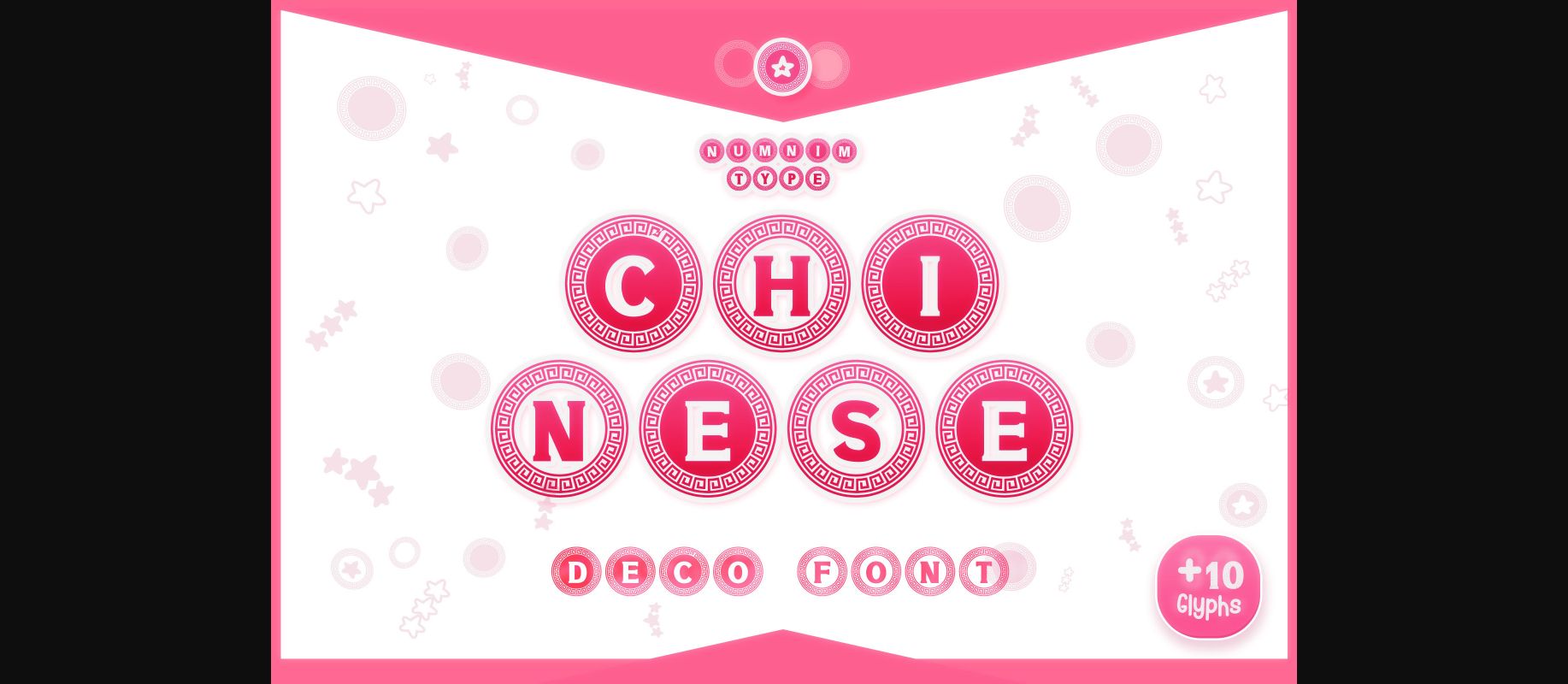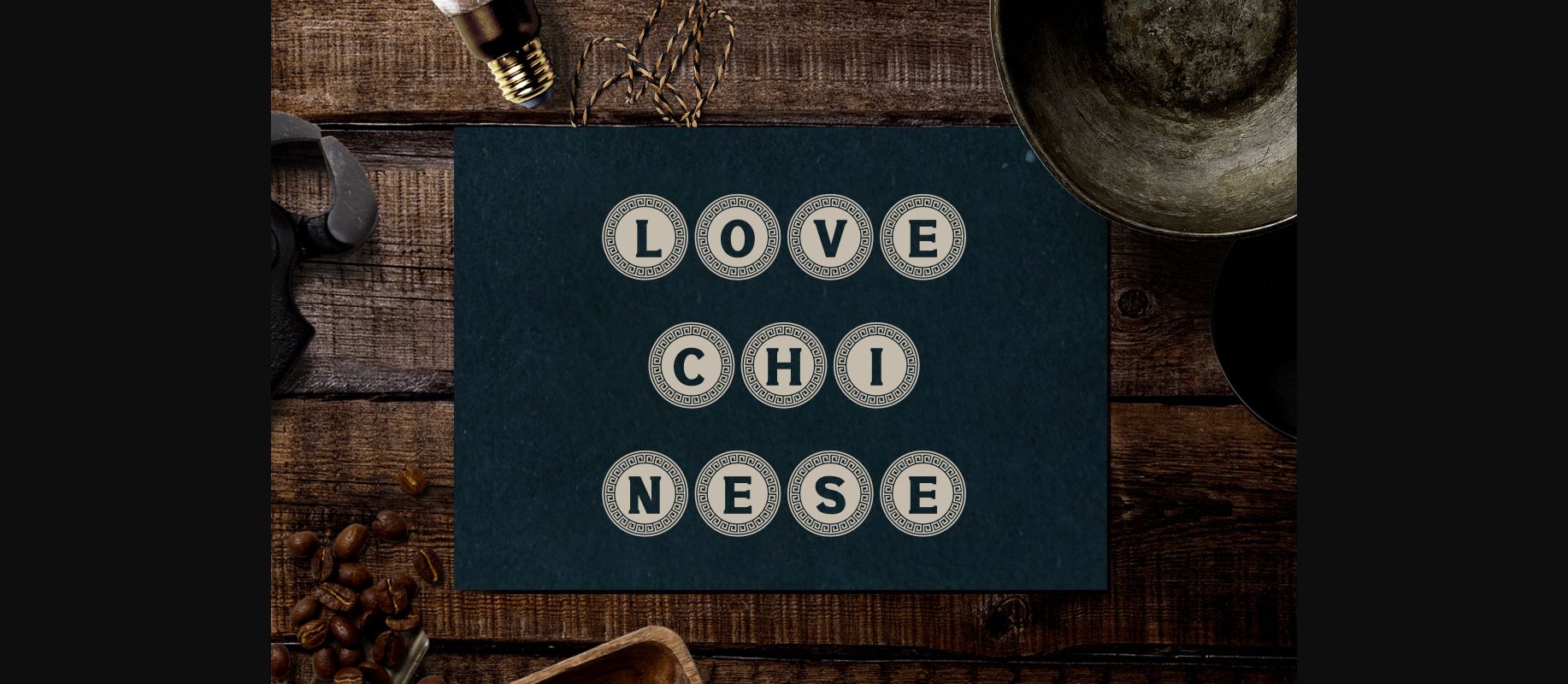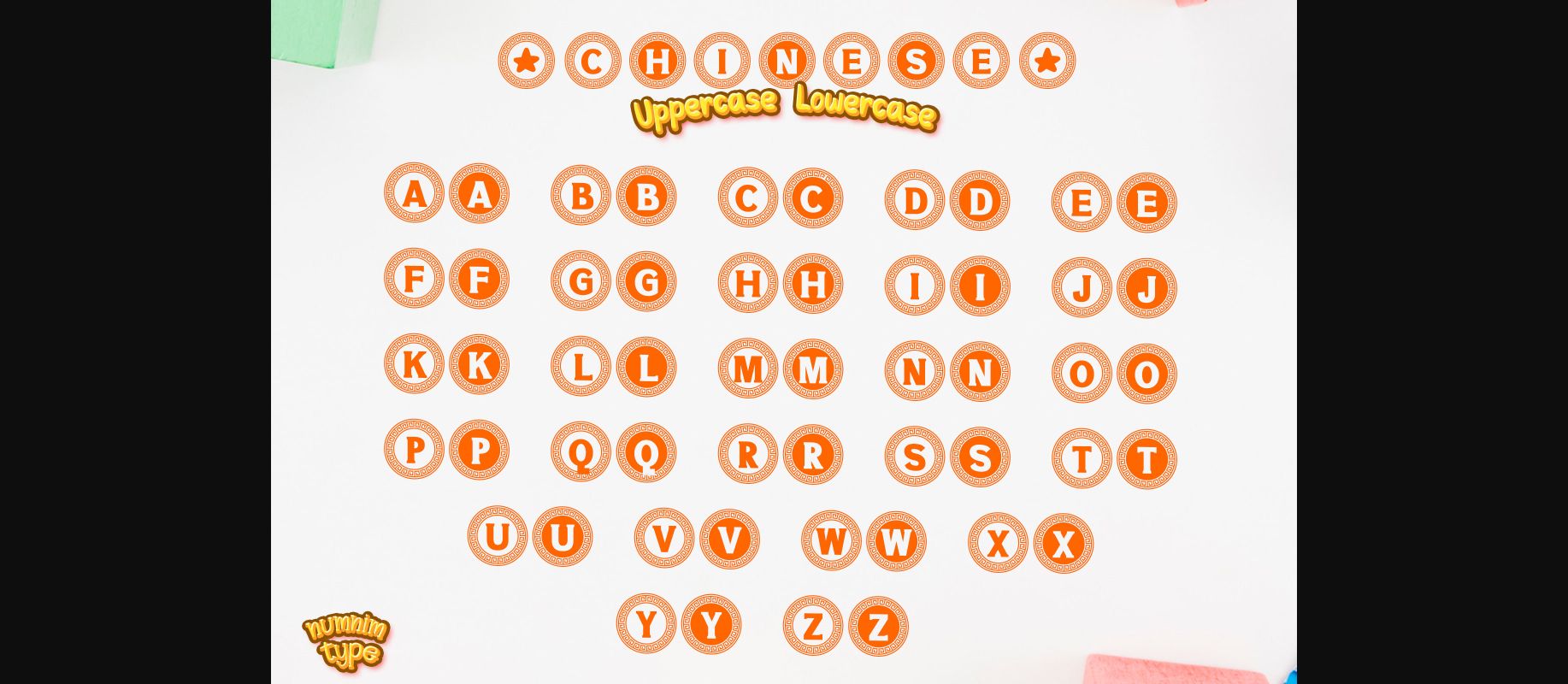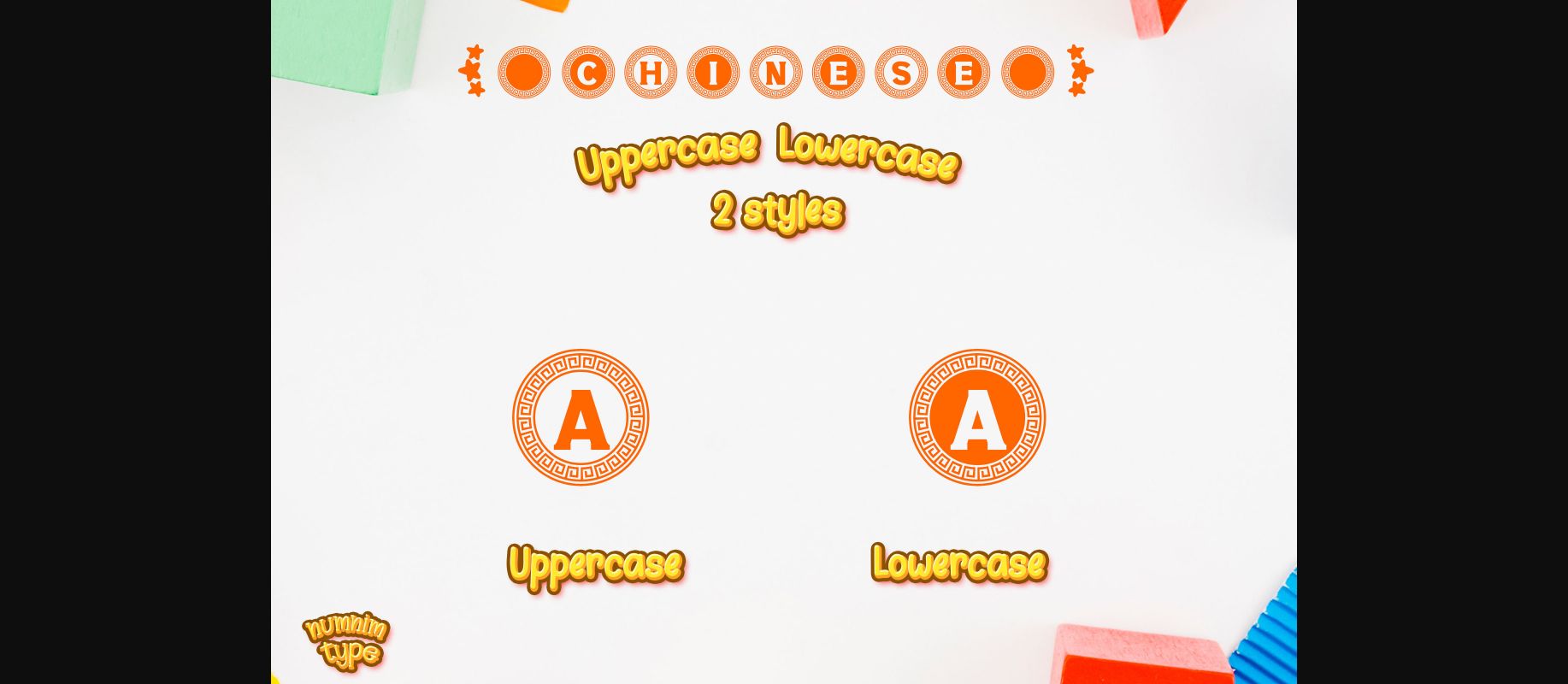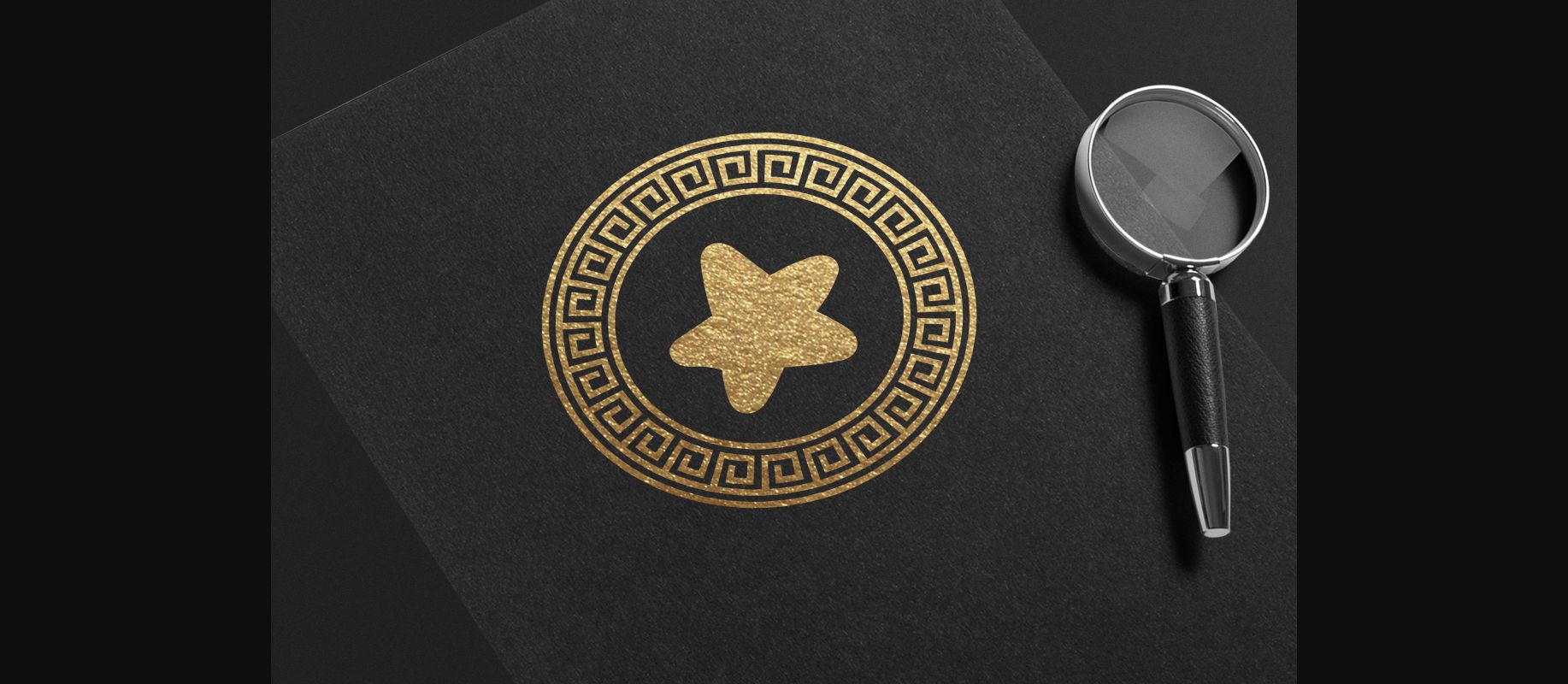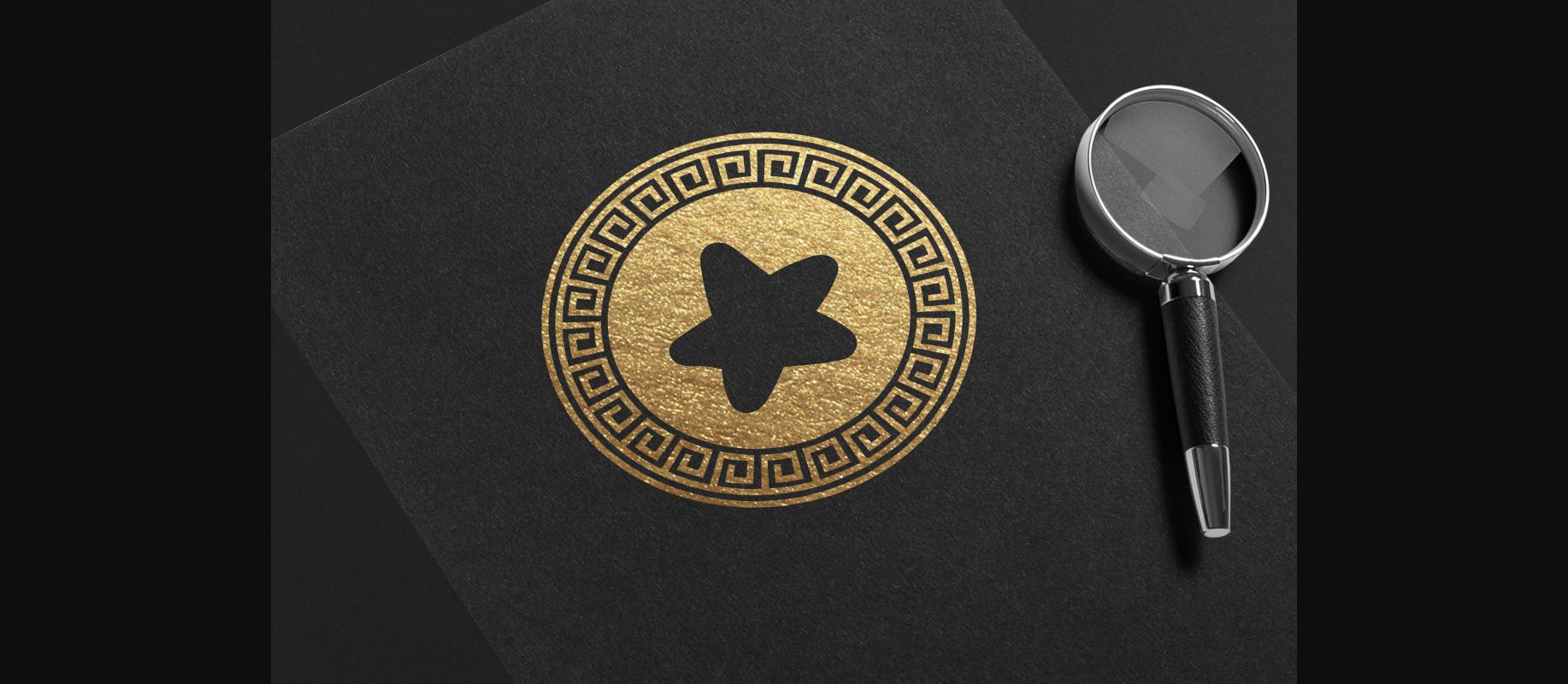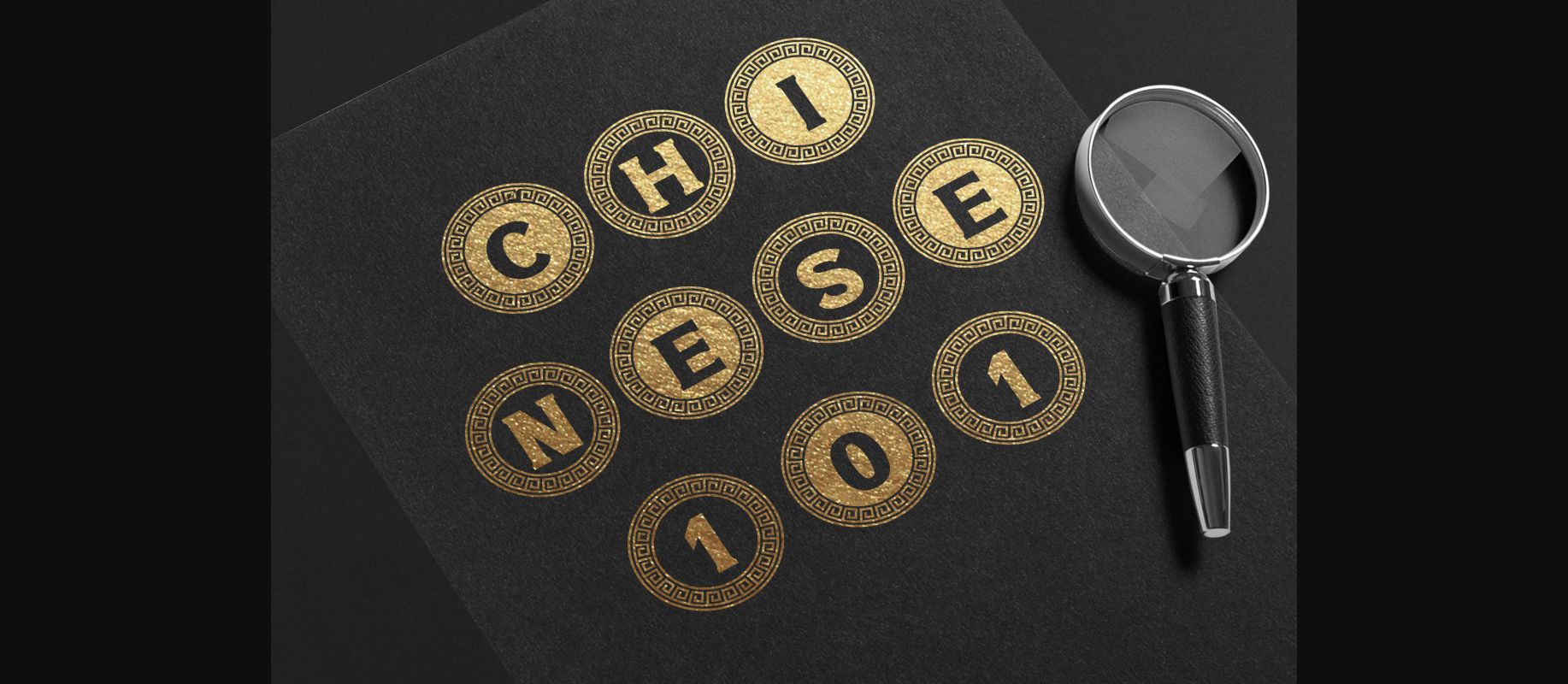
About Chinese Font
Chinese is a cool and uniquely crafted decorative font. Its fun and playful characters make it the perfect font for stickers, ornaments, Chinese New Year’s Day’s cards, and many more! Use Chinese in your creative projects, and it will add a bold touch to any design!